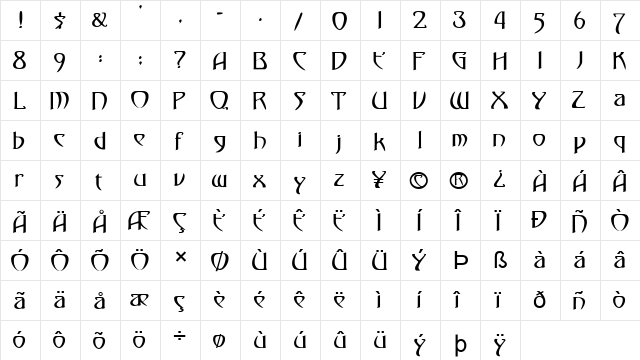
basra script
Design Context for basra Typeface
basra flows with the natural rhythm of handwritten lettering, making it ideal for designs that call for warmth and personal expression.
Font Pairing: Combine basra with a simple geometric sans for maximum contrast — the tension between flowing curves and clean structure is a classic typographic pairing.
Pro Tip: Use basra for short runs of text — names, titles, or taglines. Extended body copy in script faces tires the eye quickly.